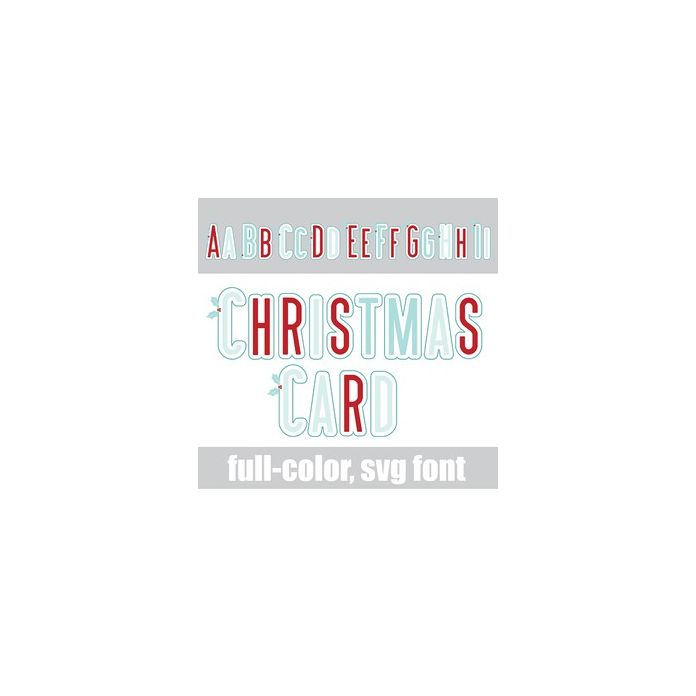
This modern, full-color font features sans serif lettering and holly on the uppercase. There is an alt case w/ additional colors you can access through your system or Silhouette's glyph map.